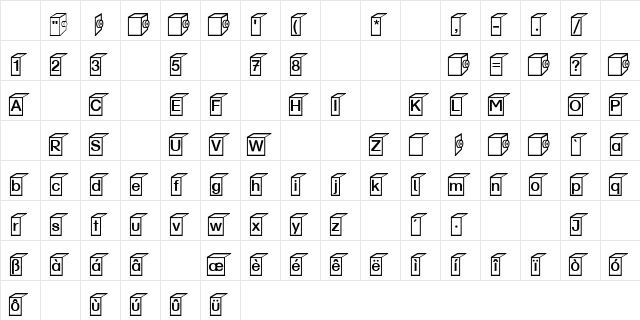
Bausteine Regular
Design Context for Bausteine Typeface
Bausteine is a composed and adaptable typeface that performs quietly and consistently across a wide range of design contexts.